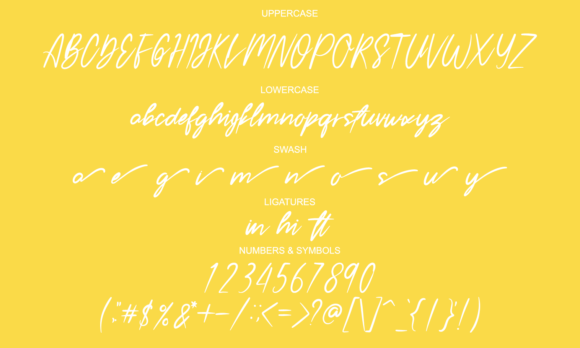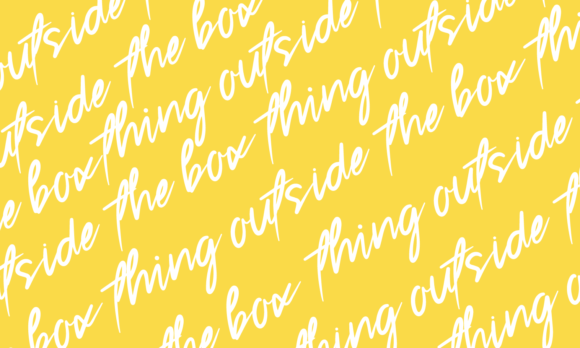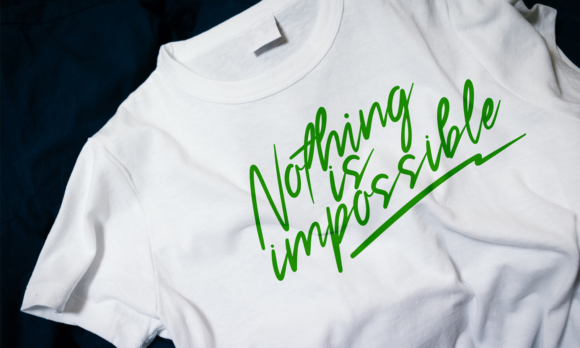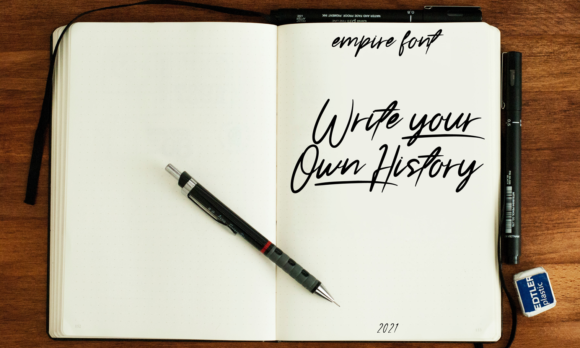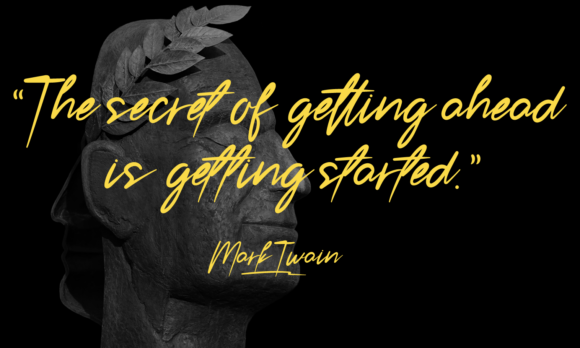
Empire Font
About Empire Font
Empire is a fashionable script font, ideal for logos, branding projects, homeware designs, product packaging, mugs, quotes, posters, shopping bags, book covers and pretty much any other luxury projects that needs a premium signature taste.